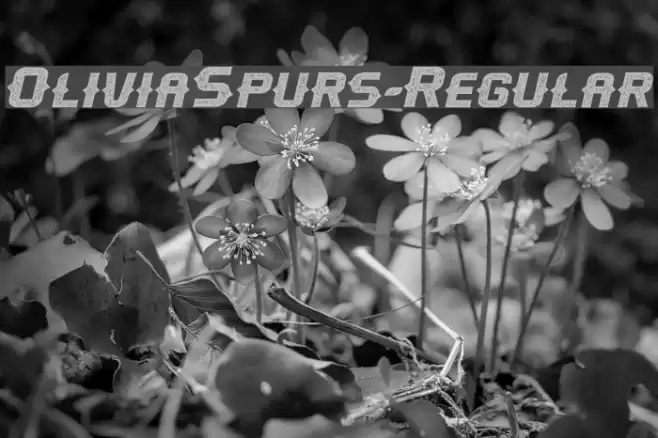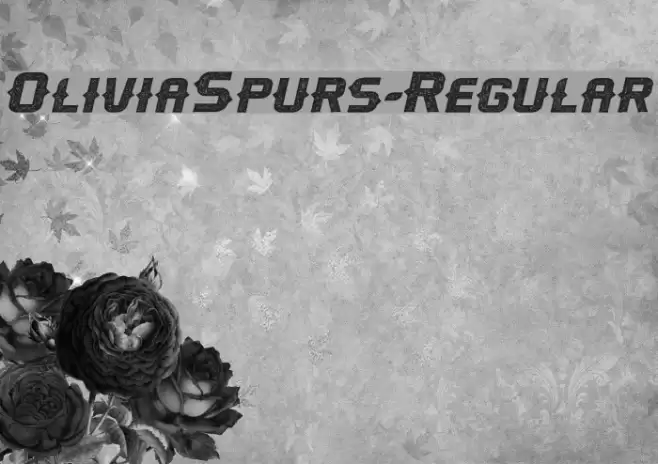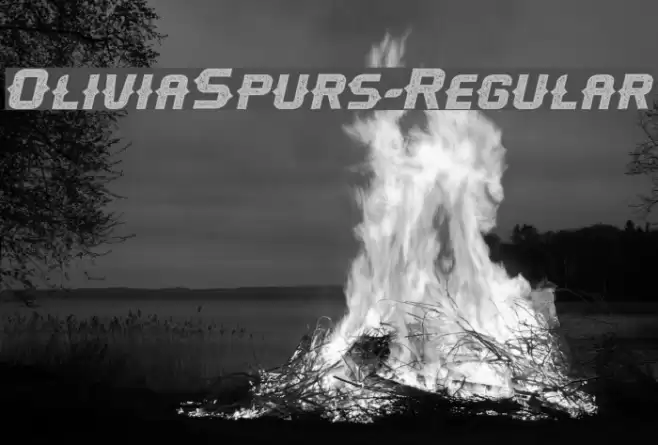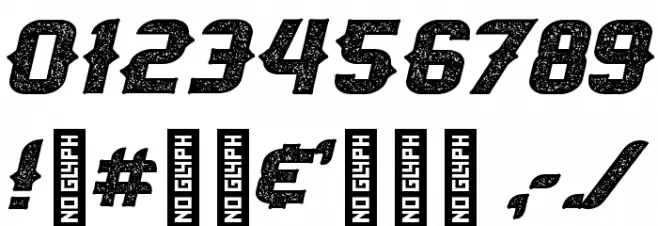
OliviaSpurs-Regular Font
OliviaSpurs-Regular Description
This font features a bold and dynamic design with a textured, distressed appearance that gives it a rugged and edgy feel. The characters are slightly slanted, adding a sense of movement and energy. The uppercase letters are prominent and commanding, while the numbers maintain the same bold style, ensuring consistency across different uses. The font's unique texture makes it stand out, making it ideal for projects that require a strong visual impact. The spacing between characters is tight, enhancing the compact and cohesive look of the text.
A bold, textured font with a dynamic and edgy style from Western fonts.
- Proposed Projects: Ideal for posters, branding, sports team logos, and any project needing a bold, impactful design.
- Character Spacing: Tight